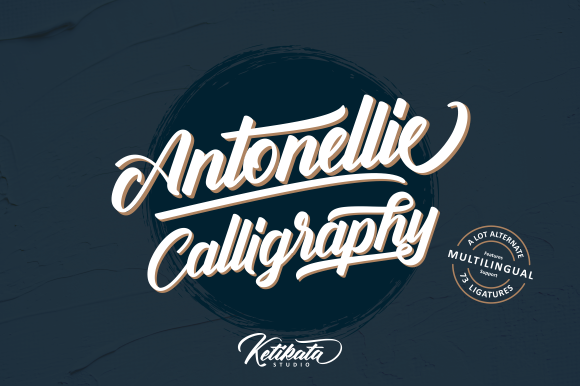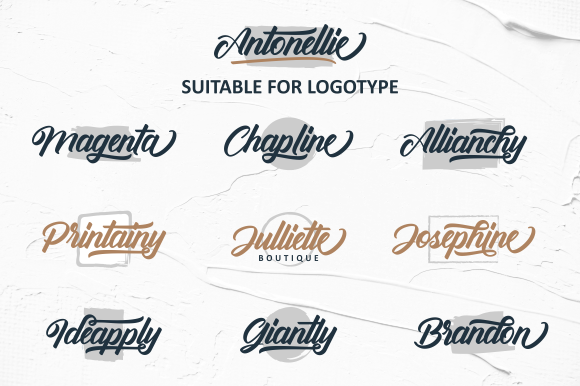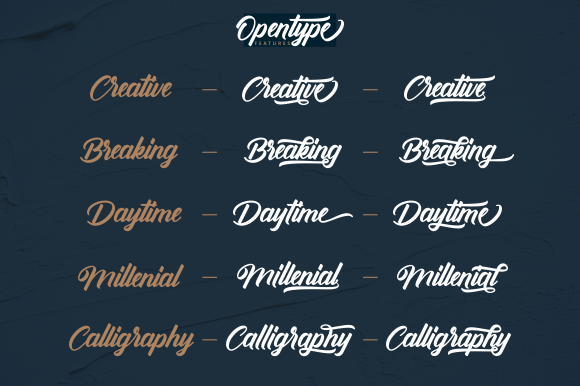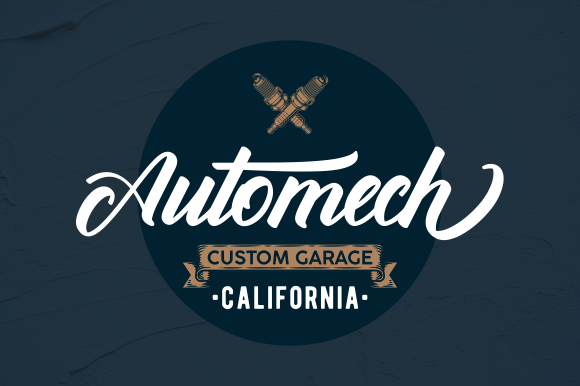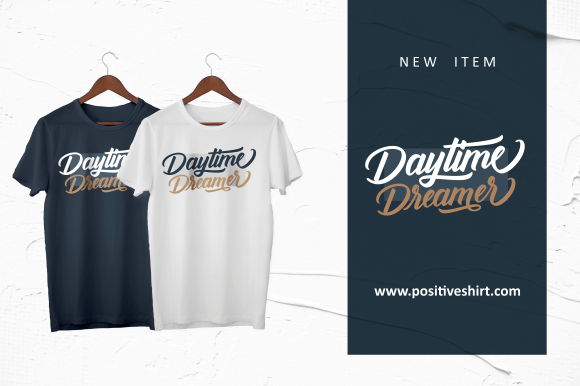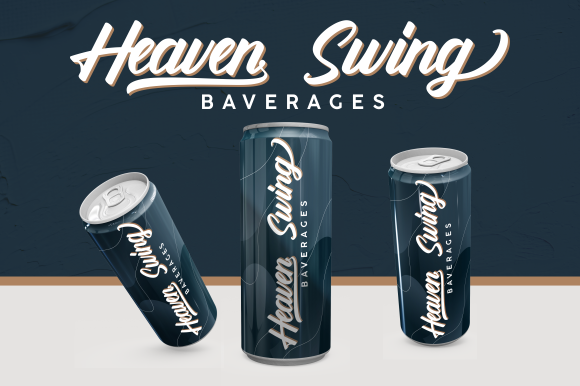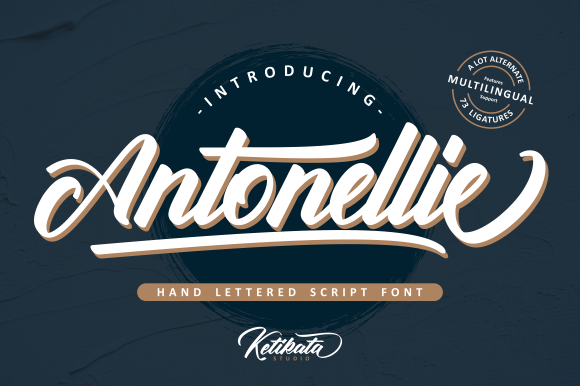
Introducing Antonellie Font: Elevate Your Designs with a Bold and Beautiful Script
In the world of typography, a good font can make all the difference in elevating your design from ordinary to extraordinary. For designers and crafters looking to add a unique touch to their projects, the Antonellie font is an excellent choice. This strong and bold script font, carefully crafted with hand lettering, is perfect for creating customized designs that stand out.
What Makes Antonellie Font Special?
The Antonellie font is not just any ordinary font. It’s a carefully crafted script font that boasts a range of features that make it perfect for designers and crafters. Here are some of its key features:
- Hand Lettering: The Antonellie font is carefully crafted with hand lettering, giving it a unique and personal touch.
- Stylistic Alternates: The font contains many stylistic alternates, allowing you to mix and match letters to create a customized look.
- Swashes: The font also includes swashes, which can be used to add a touch of elegance and sophistication to your designs.
The Antonellie font is versatile and can be used for a wide range of projects, including:
- Quotes: Add a touch of elegance and sophistication to your quotes with the Antonellie font.
- Merchandise: Use the Antonellie font to create customized merchandise, such as t-shirts, mugs, and more.
- Packaging: Elevate your packaging designs with the Antonellie font, adding a touch of luxury and sophistication.
- Business Cards: Make a statement with your business cards by using the Antonellie font, perfect for entrepreneurs and small business owners.
Why Choose Antonellie Font?
With so many fonts available, why choose the Antonellie font? Here are just a few reasons:
- Unique: The Antonellie font is a unique and original font that will help your designs stand out from the crowd.
- Customizable: With its stylistic alternates and swashes, the Antonellie font can be customized to fit your design needs.
- Elegant: The Antonellie font has an elegant and sophisticated feel, perfect for designs that require a touch of luxury.
Tips for Using Antonellie Font
Here are a few tips for using the Antonellie font in your designs:
- Experiment with Stylistic Alternates: Don’t be afraid to experiment with the stylistic alternates and swashes to create a customized look.
- Pair with Other Fonts: The Antonellie font pairs well with other fonts, so don’t be afraid to try pairing it with a sans-serif font for a contrasting look.
- Use for Headlines: The Antonellie font is perfect for headlines and titles, adding a touch of elegance and sophistication to your designs.
In conclusion, the Antonellie font is a beautiful and elegant script font that is perfect for designers and crafters looking to add a unique touch to their projects. With its stylistic alternates and swashes, it’s easy to create customized designs that stand out. Whether you’re creating quotes, merchandise, packaging, or business cards, the Antonellie font is an excellent choice.